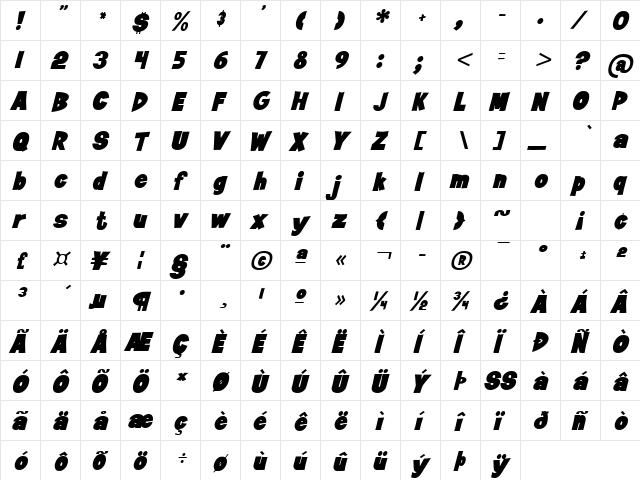
Jan Brady Italic
Design Context for Jan Brady Typeface
Jan Brady is a composed and adaptable typeface that performs quietly and consistently across a wide range of design contexts. The slanted form adds forward momentum and visual energy.
Pro Tip: Use Jan Brady for emphasis, pull quotes, and subheadings where its slanted energy can add rhythm to the layout.